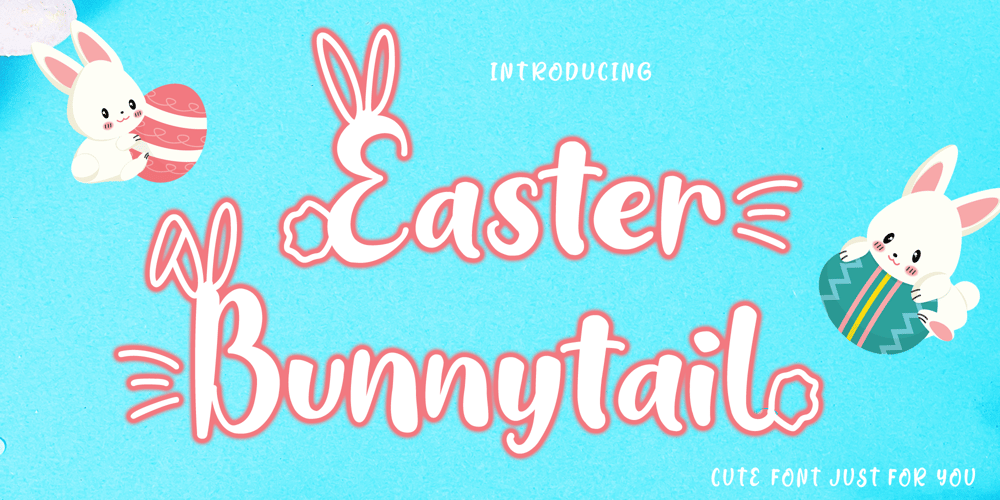
Easter Bunnytail Font Family was designed by Aditiyo Dwi Putranto and published by Creaditive Design. Easter Bunnytail contains 1 styles and family package options. Easter Bunnytail is a cute and friendly display font, that can easily stand out. Simple but with a strong visual effect, this font will instantly make your creation more appealing than any others.Special Characters are available for uppercase and lowercase letters.Alternate for Uppercase, beginning & end swashes for lowercase can make your design more beautiful.